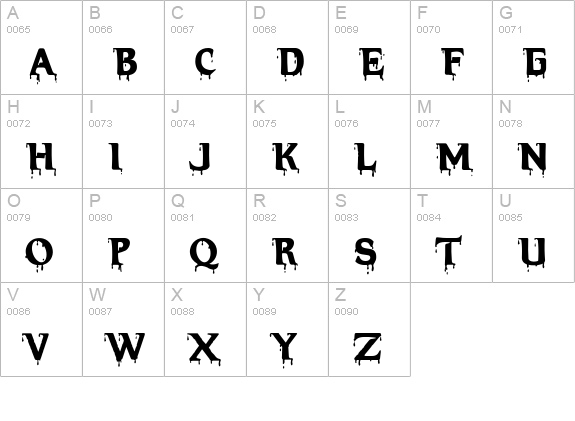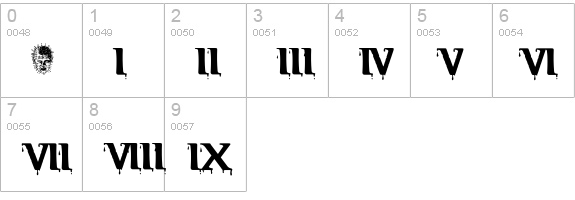
Hellraiser Bloody Font Details
Introducing Hellraiser Bloody font, a spine-chilling typeface that will immerse your designs in a world of horror and intrigue. This font exudes a macabre essence with its razor-sharp edges and blood-stained letterforms, evoking a sense of dread and anticipation. Hellraiser Bloody font is perfect for all your Halloween-themed projects, horror movie posters, book covers, and anything that requires a touch of darkness and mystery. Its unique design captures the essence of terror, making it an ideal choice for haunted house flyers, gothic-themed invitations, or even tattoo designs. This font is not only visually striking, but it also offers versatility in its usage. Whether you want to create a bone-chilling headline or an eerie paragraph, Hellraiser Bloody font delivers with its wide range of letters and characters. It allows you to add a touch of horror to your designs, ensuring that they leave a lasting impression on your audience. But what makes Hellraiser Bloody font even more enticing is the fact that it is freely available to download at FontsMarket.com. Yes, you read that right! This font can be yours without any cost, allowing you to unleash your creativity without any limitations. FontsMarket.com provides a hassle-free experience, offering a vast collection of fonts for all your design needs. So, if you're looking to inject a dose of terror and suspense into your next project, look no further than Hellraiser Bloody font. With its captivating design and the freedom to download it for free at FontsMarket.com, this font is a must-have for any horror enthusiast or designer seeking to make a lasting impression. Embrace the darkness and let Hellraiser Bloody font bring your nightmares to life.